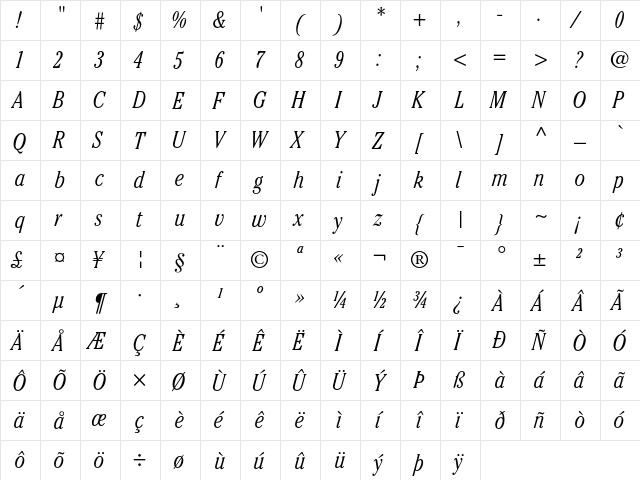
ITC Cheltenham Light Condensed Italic Font Preview
Design Context for ITC Cheltenham Typeface
ITC Cheltenham offers clean, dependable letterforms without strong stylistic allegiance, making it a practical choice for designers who need flexibility. The slanted form adds forward momentum and visual energy. The delicate stroke weight brings airiness and refinement to layouts. Its narrow stance lets it pack a punch even in space-constrained designs.
Pro Tip: Try ITC Cheltenham for annotation and caption copy alongside an upright companion — the contrast in angle creates a dynamic but ordered typographic system.